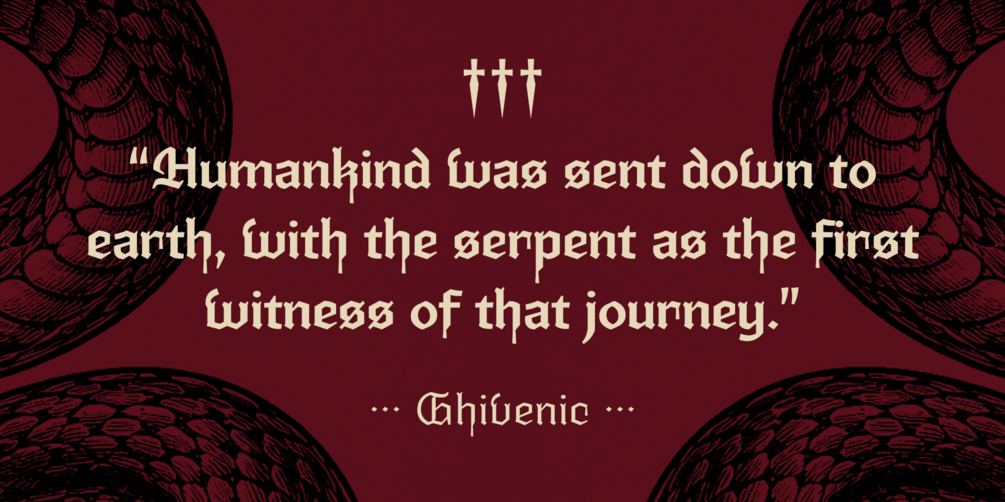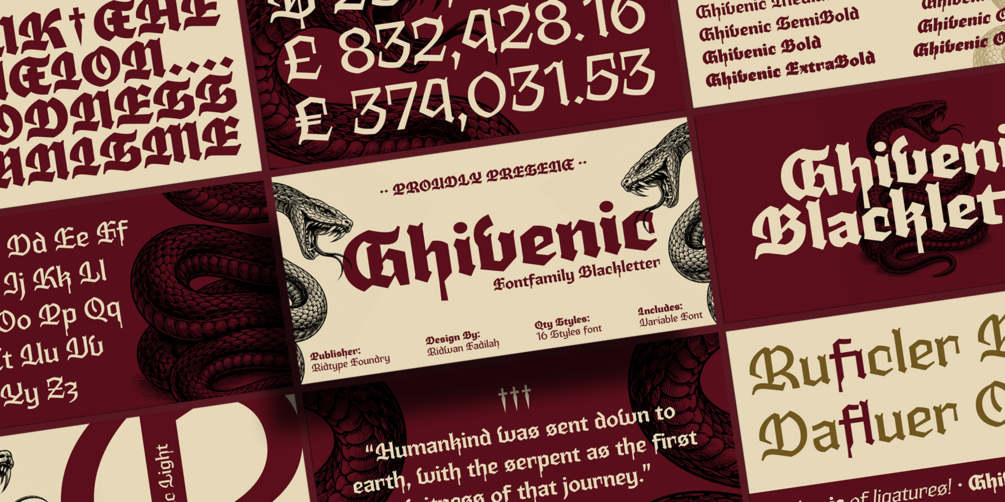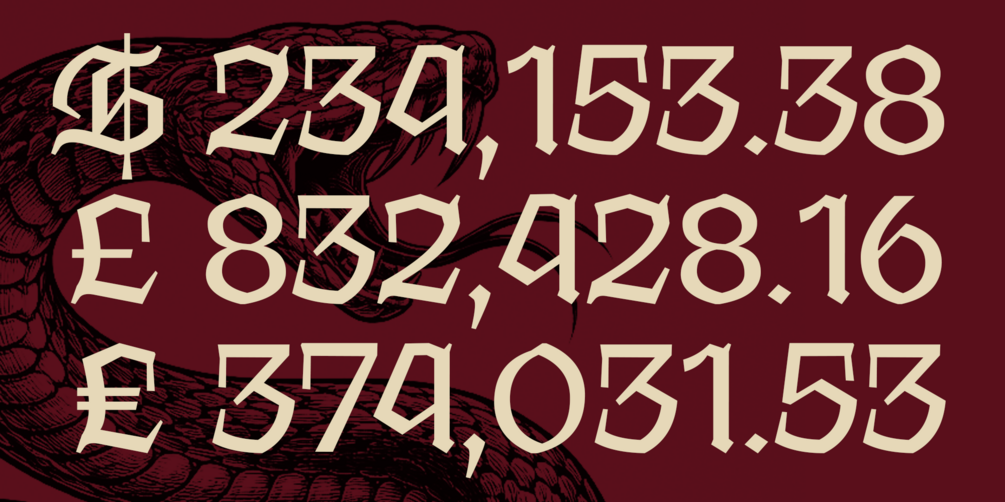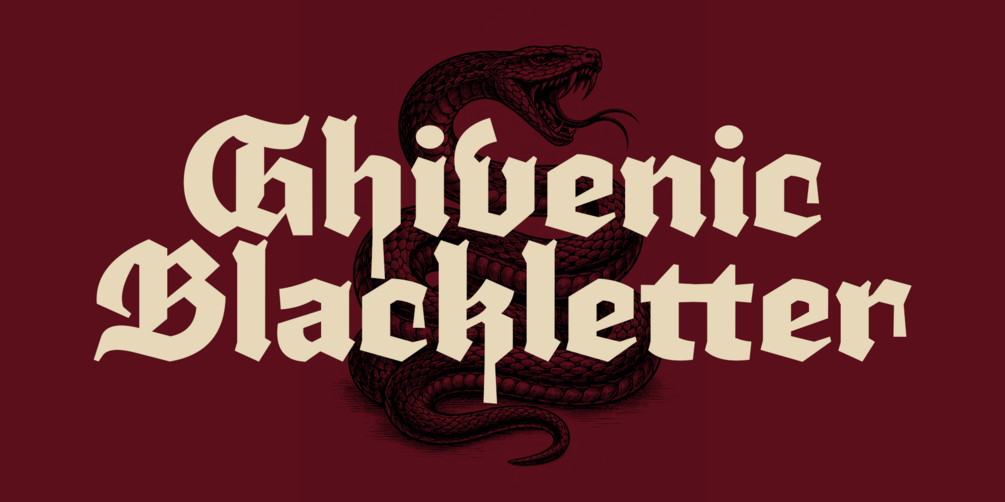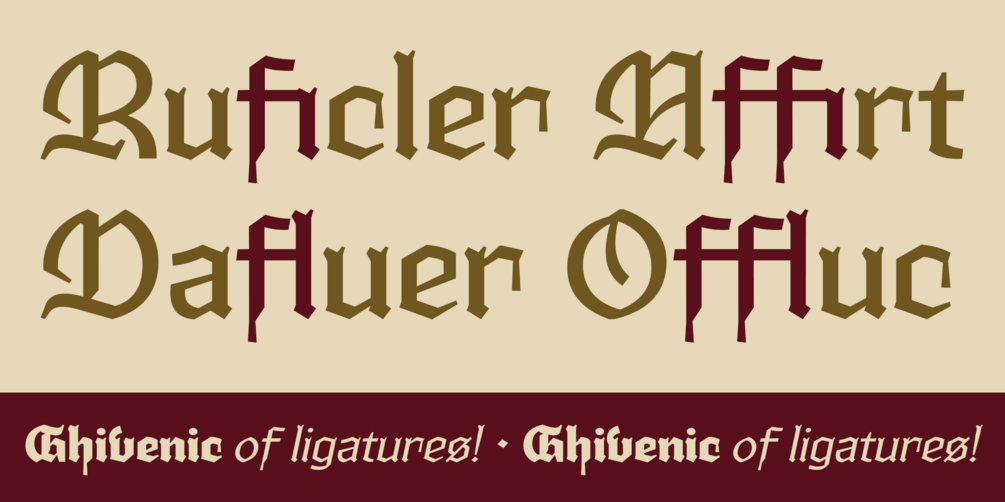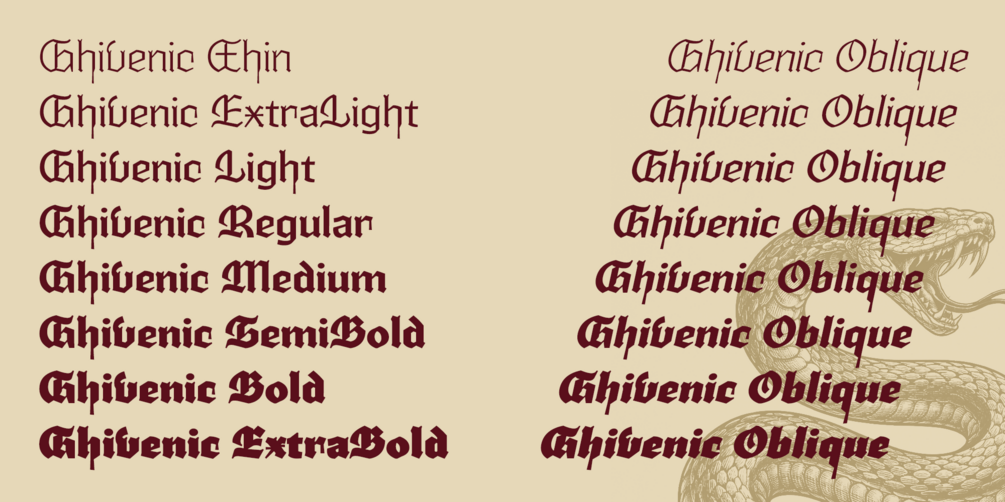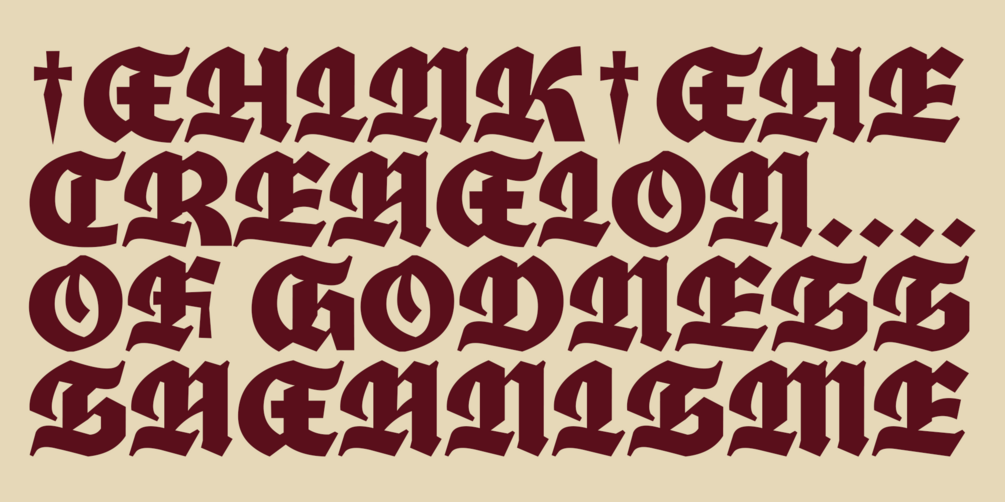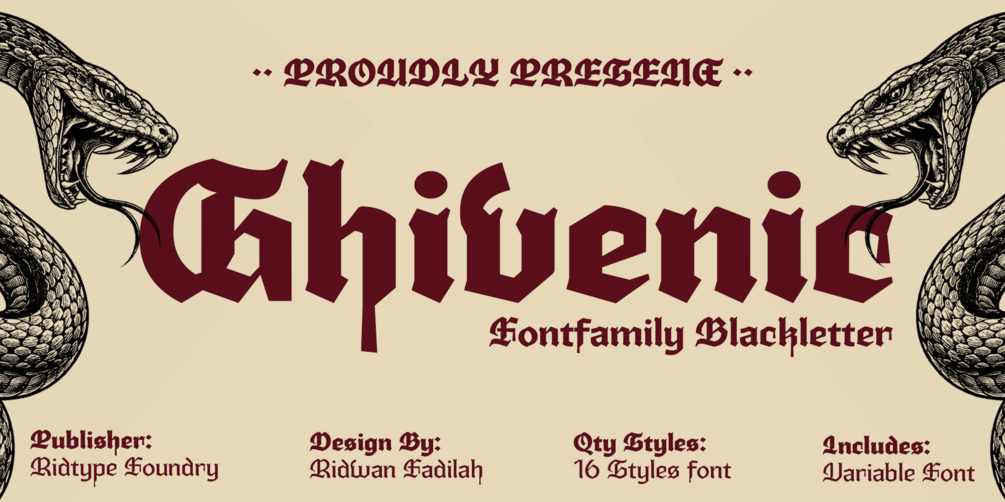
Ghivenic
Ghivenic font is not merely typography, but a symbol of visual power. It delivers a historic, authoritative, and character-rich presence. Every sharp stroke reinforces a bold, exclusive, and premium identity. Ideal for brands that aim to appear dominant, legendary, and irreplaceable within today’s highly competitive modern landscape.
- Details font : Blackletter
16 font styles
Thin - ExtraBold